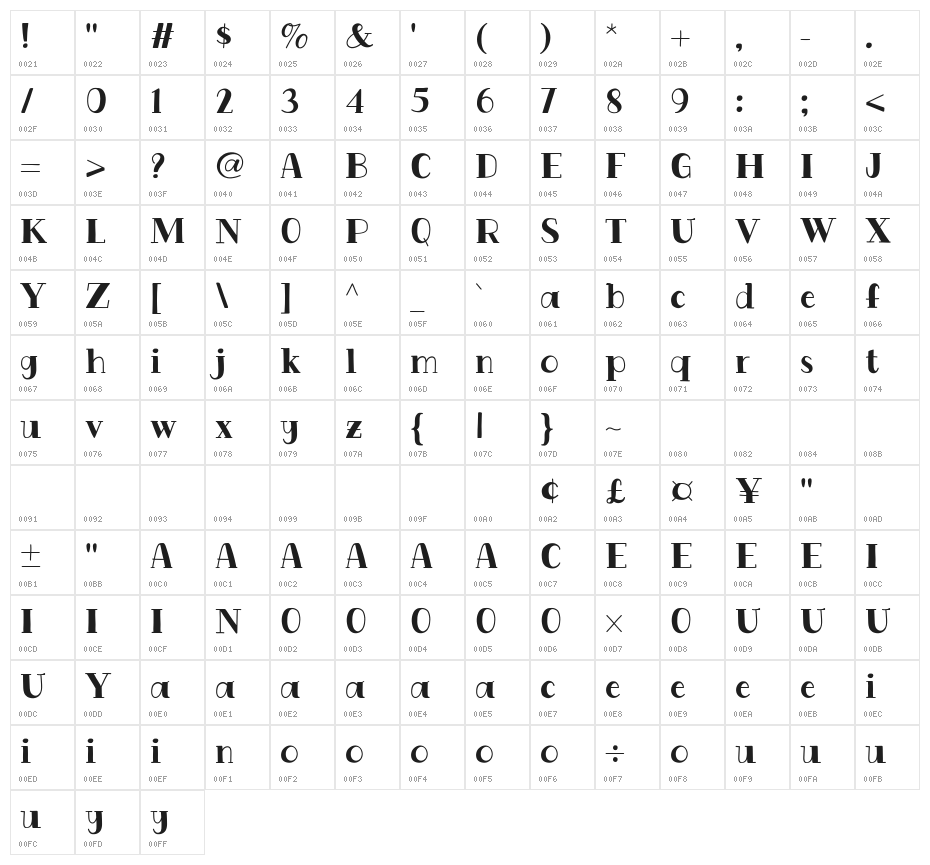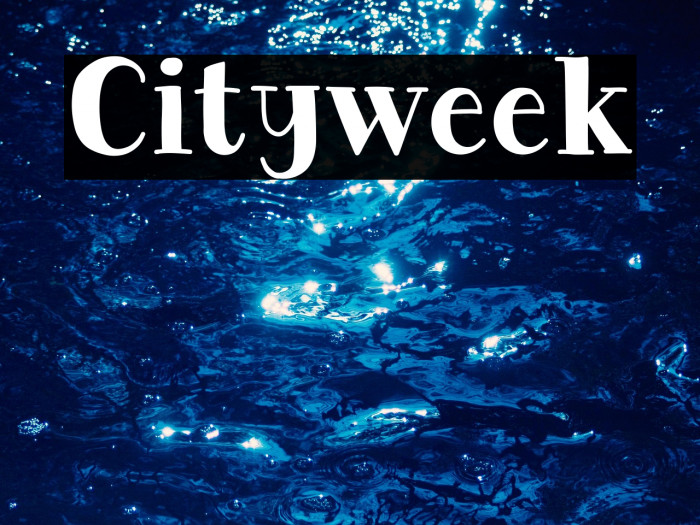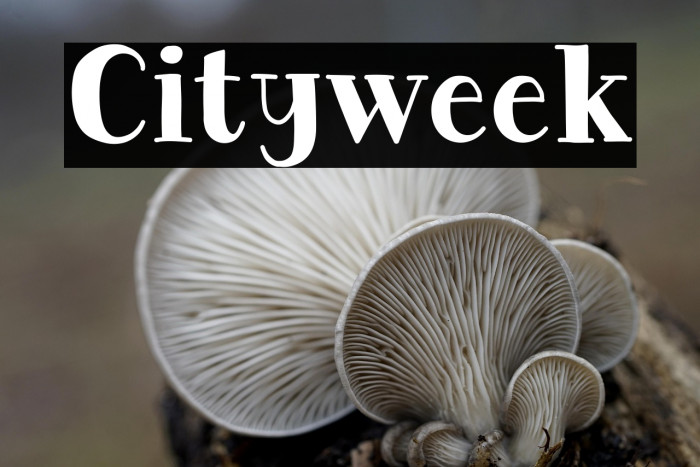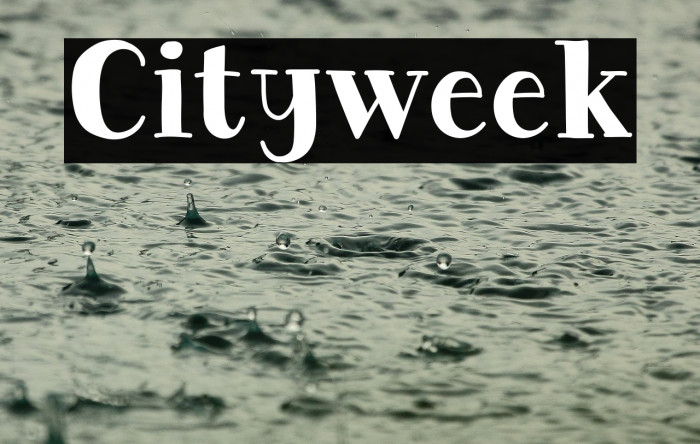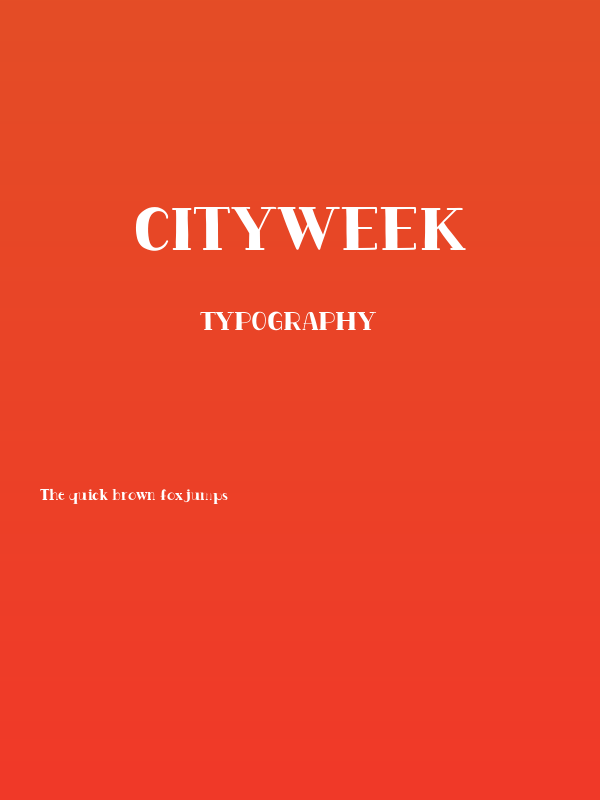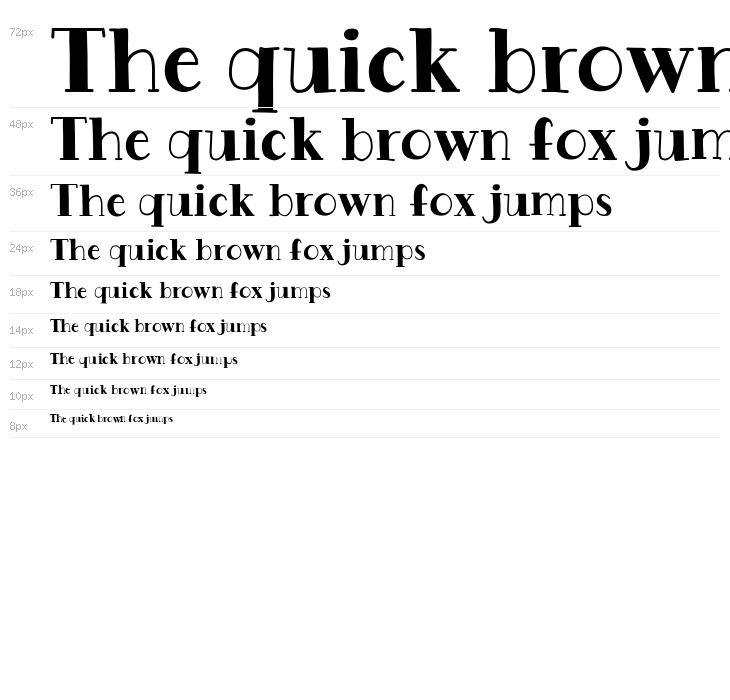
Cityweek Font
Cityweek Description
This font features a unique blend of modern and classic elements, characterized by its distinct serifs and varying stroke widths. The uppercase letters exhibit a bold presence with slightly exaggerated serifs, while the lowercase letters maintain a more subtle and elegant appearance. The numerals are designed with a consistent style that complements the alphabet, offering a cohesive look. Special characters are crafted with attention to detail, ensuring they fit seamlessly with the overall design. The font's playful yet sophisticated style makes it versatile for various applications.
| Use Case | Headlines, Logos, Editorial design |
| Proposed Projects | Ideal for branding, editorial design, and advertising where a touch of elegance and modernity is desired. |